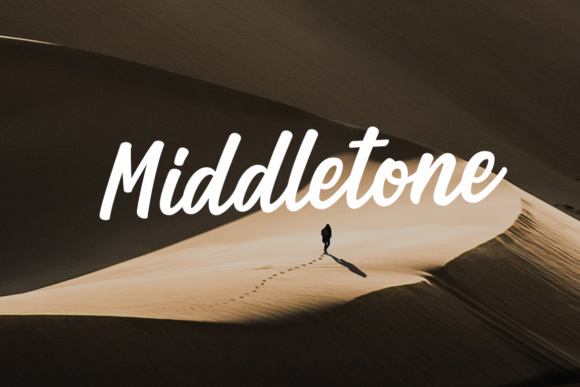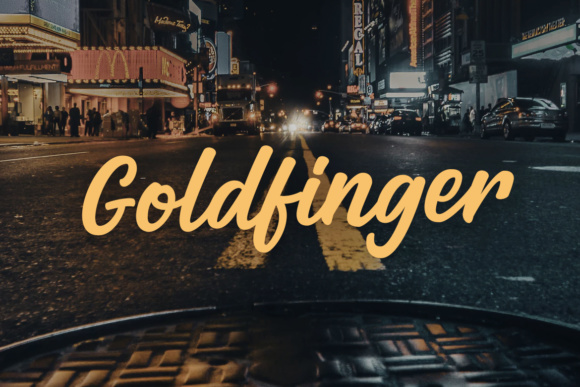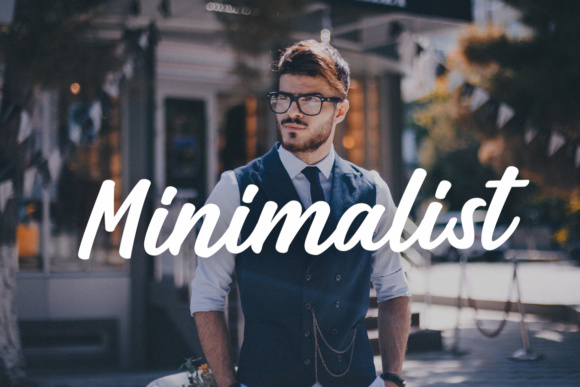
Introduction to Havania Script Font Font
Fonts play a crucial role in design, and the Havania Script Font font is a typeface that brings both character and versatility to any project. Whether you’re working on a branding project, a website, or a print design, the Havania Script Font font offers a unique style that can elevate your work.
| π€ Author | Micromove |
We Provide You one of the best Stylish Hand Written Scripts, Havania.
With itβs striking appearance Havania can be used for logos, header, titles, prints & other creative process possibilities Create a Extraordinary Typography / lettering results by using Havania.
Key Features of Havania Script Font Font
Why Choose Havania Script Font Font?
The Havania Script Font font is more than just a typeface β it’s a design tool that helps you communicate your message with style and clarity. Its unique character set and versatile design make it suitable for a wide range of applications, from elegant invitations to bold headlines.
With its carefully crafted letterforms and balanced proportions, the Havania Script Font font ensures readability and visual appeal across all mediums.
What makes Havania Script Font font special?
The Havania Script Font font stands out with its unique design, exceptional readability, and versatility across various design applications.